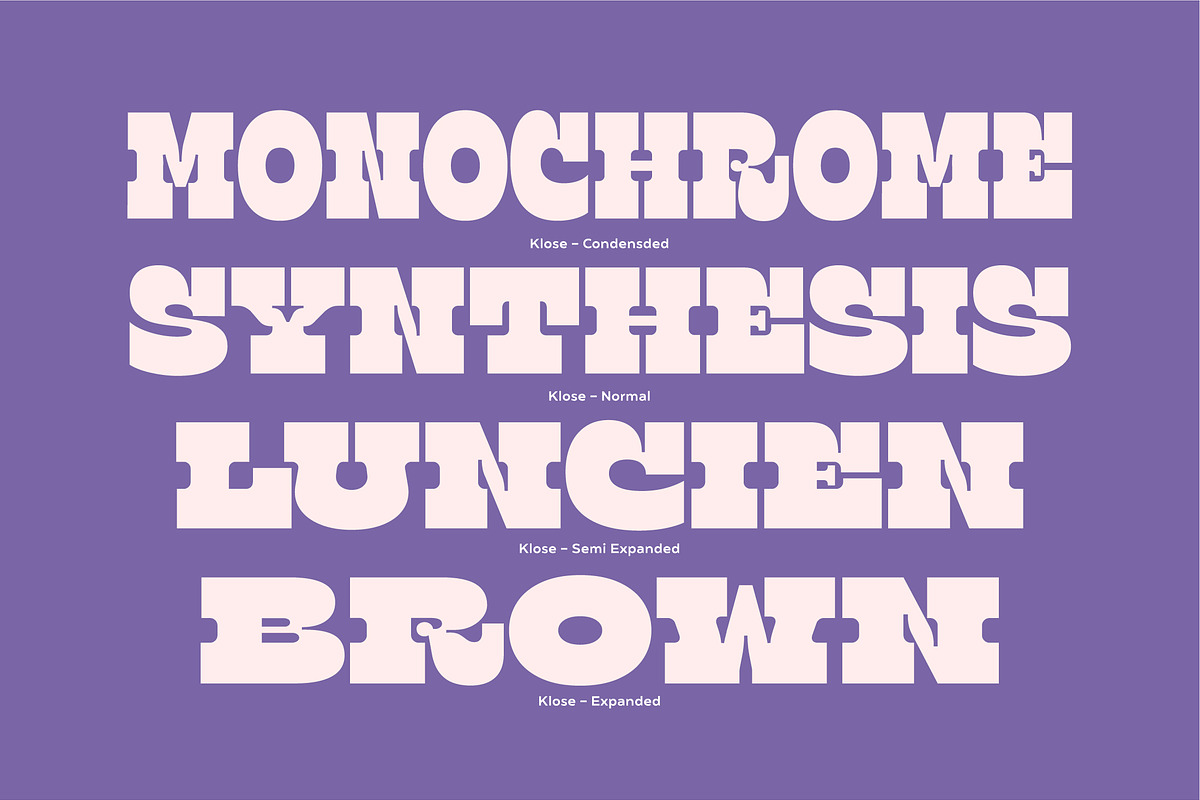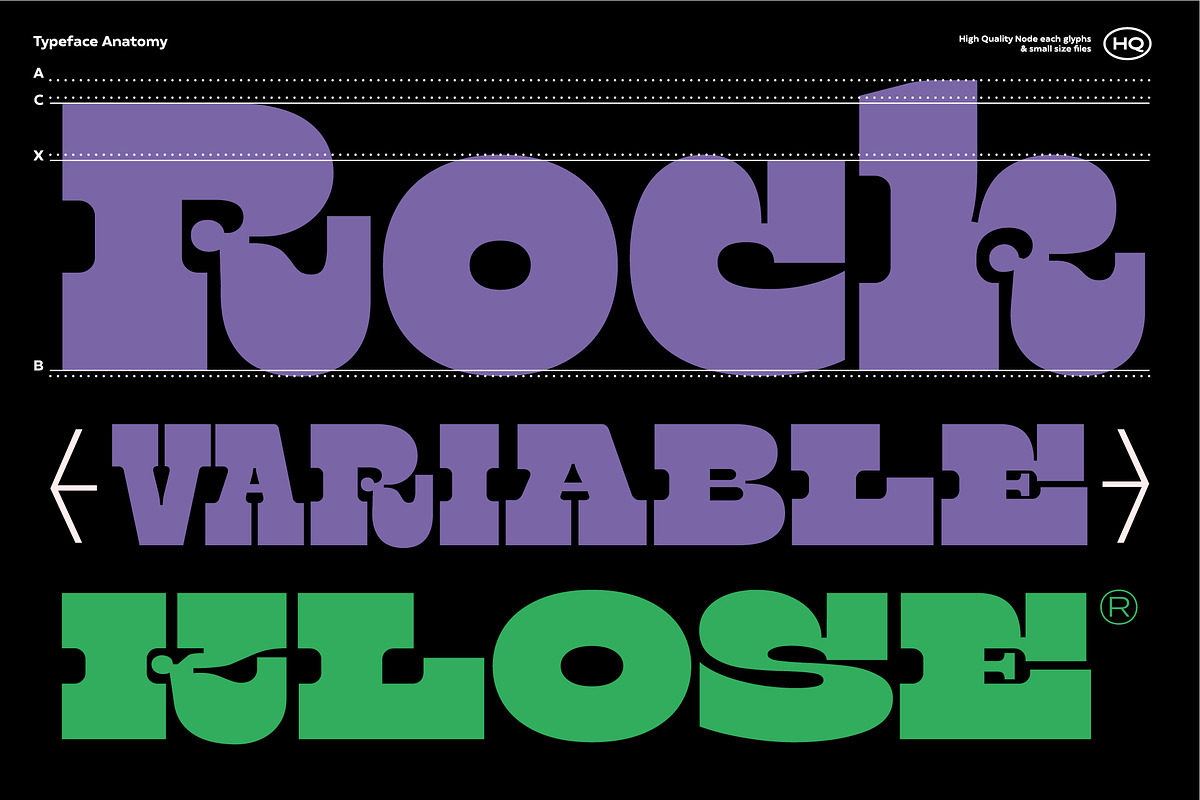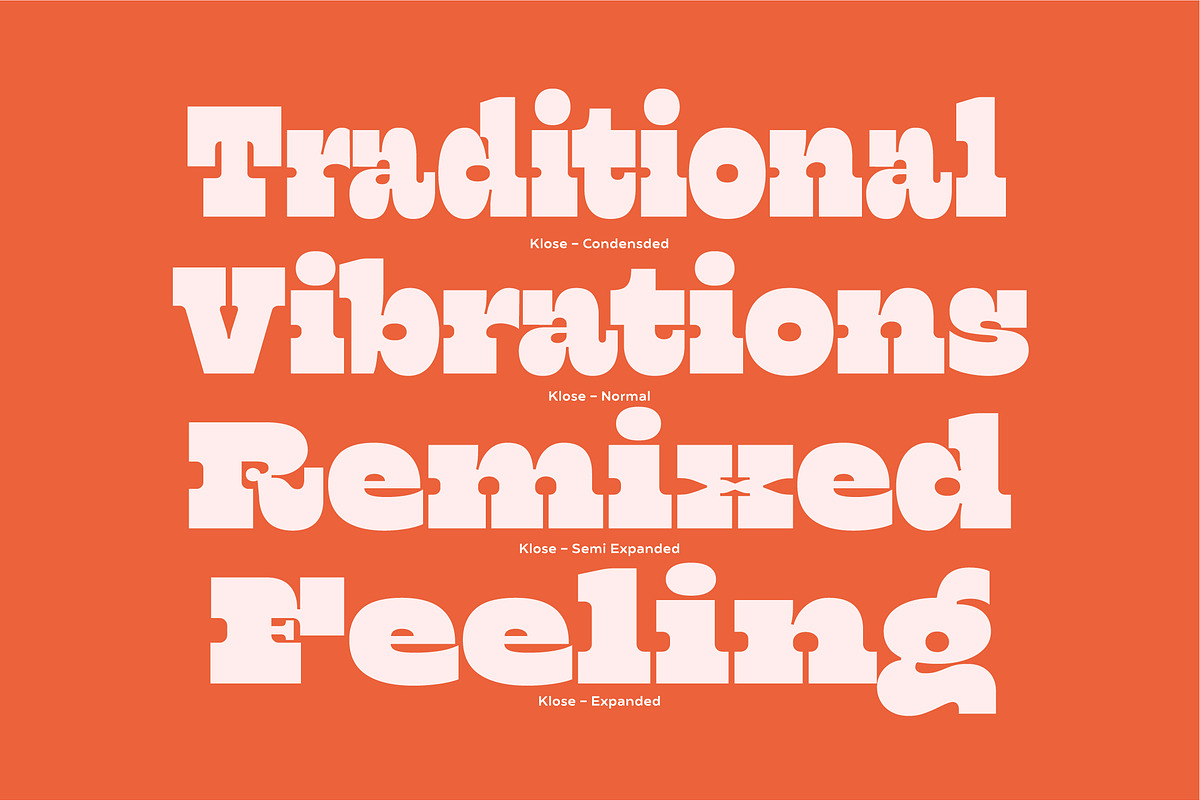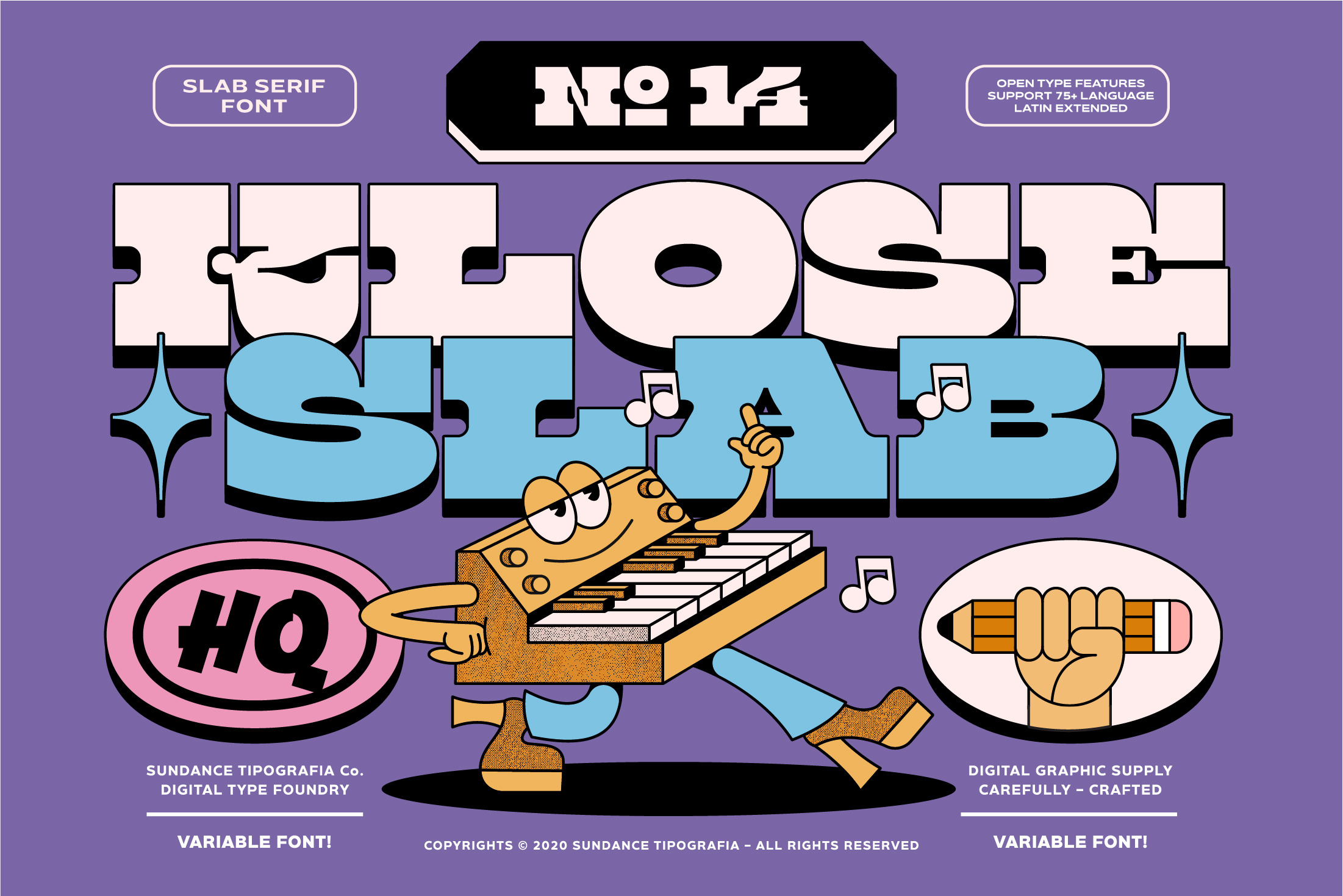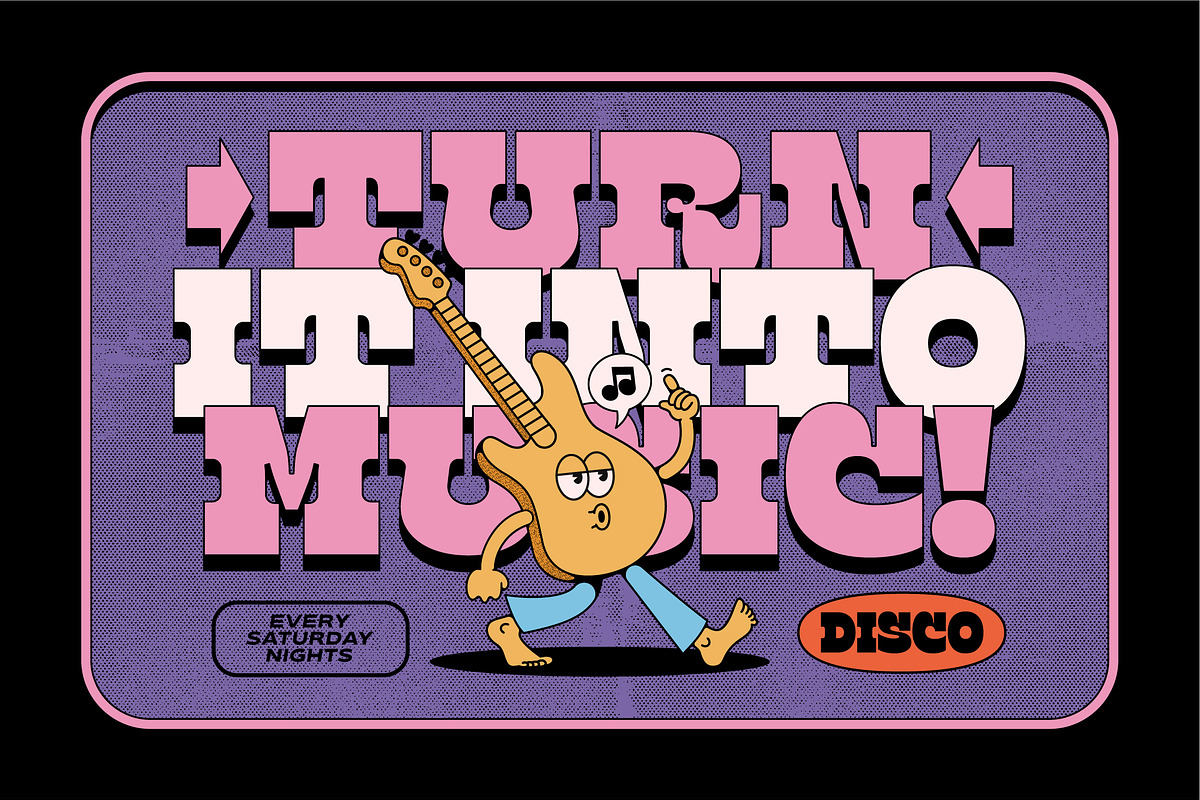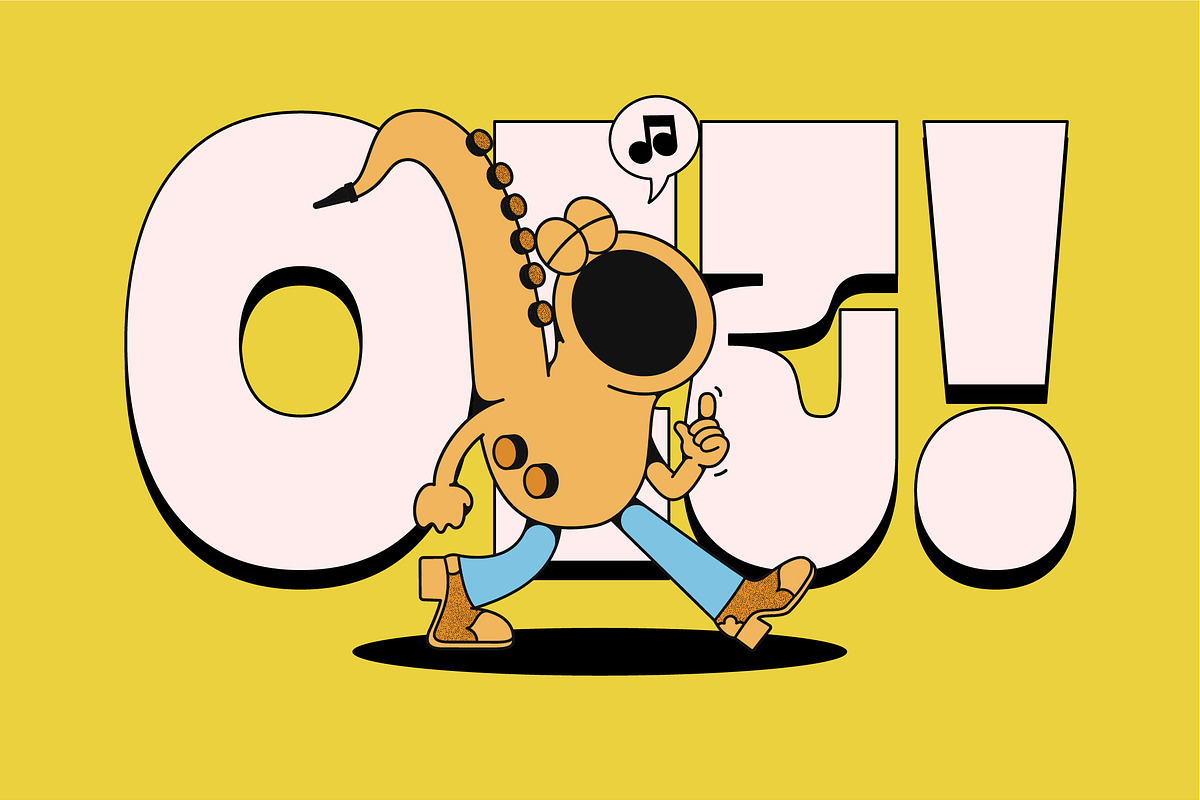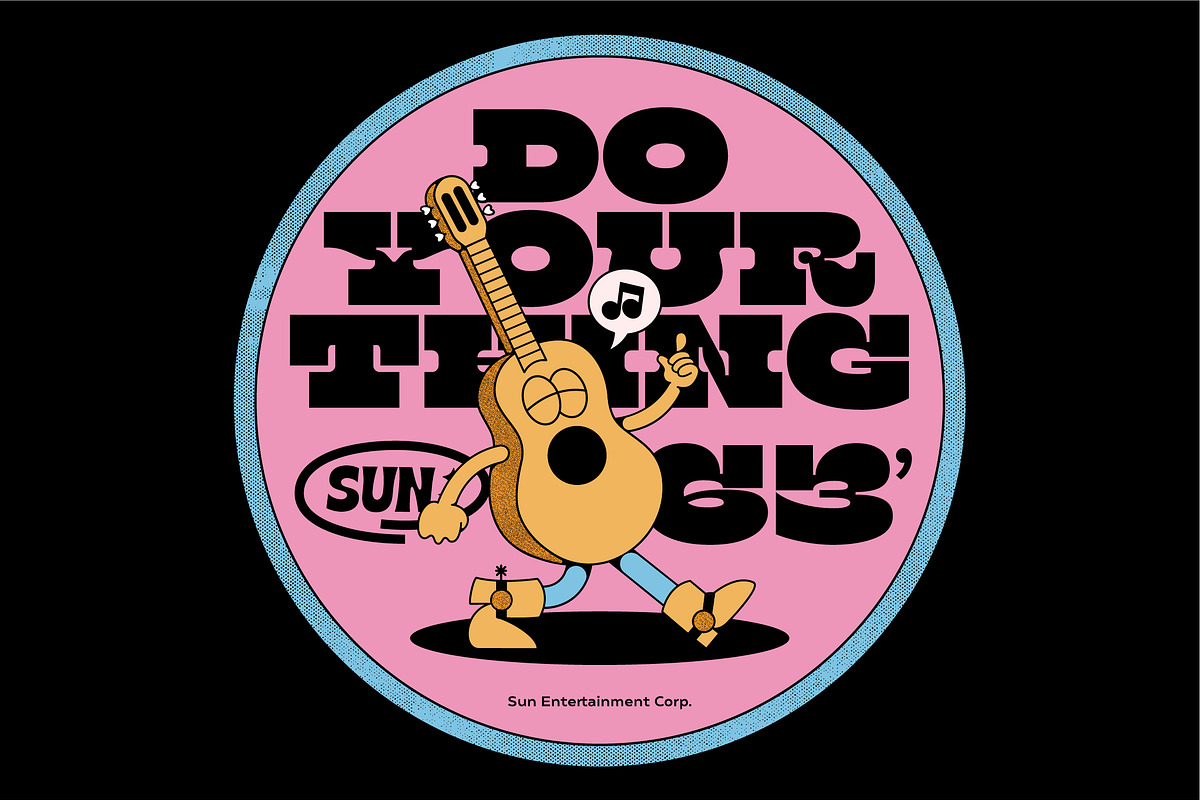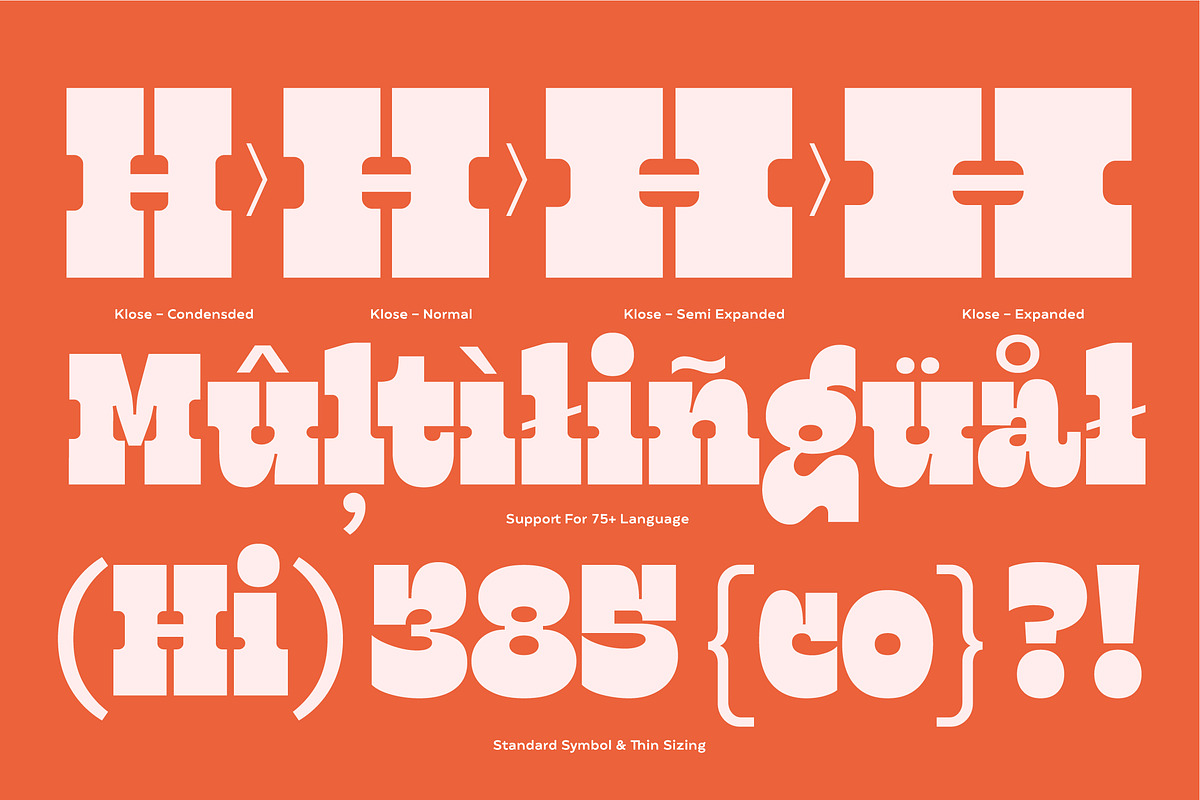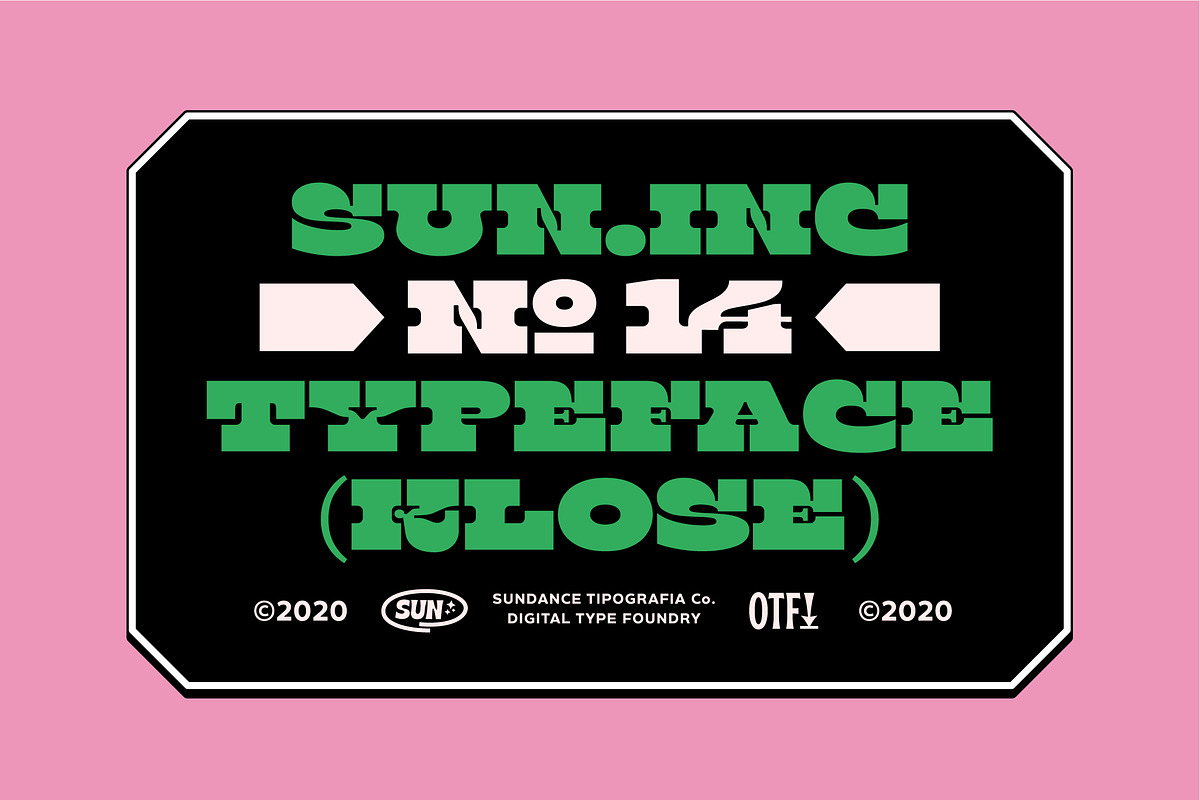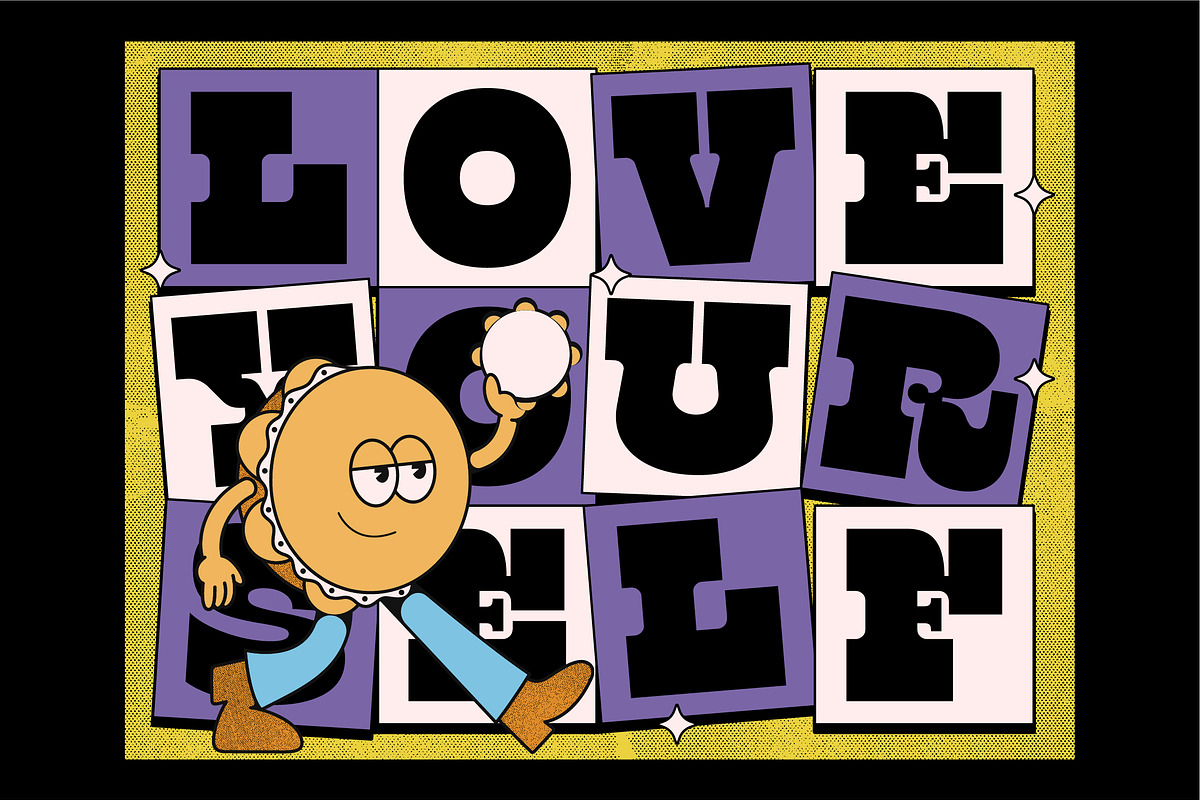
Introductory Klose Slab Another Vintage Typeface from Studio Sun (SUN014) for your Fonts collection. Klose comes with 4 style (condensed, normal, semi expanded, and expanded) also available in Variable Font format (for customize widths). Perfect for logotype, head text, displayed text, and many more). Klose support more 75 language (Latin pro).